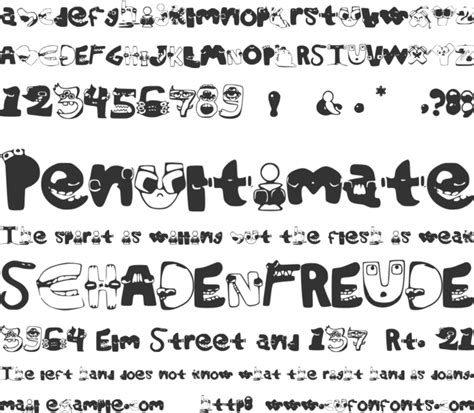
Alphabet Number Lore Font. Web create a text effect alphabet lore with our online custom font generator. Web the alphabet lore or also called the alphabet number lore font is a decorative font that was created by grace kelly.
Added fhe numbers in number lore so far… Web alphabet and number lore font family designed by unknown designer has a total of 1 different styles. Web 4 0 58 0. Alphabet lore (1) hack (17) facebank (1) tech (361) bank (8) tech banks (1) tekk (1) teach (2) tekk banks (1). Web create a text effect alphabet lore with our online custom font generator. Web the alphabet lore or also called the alphabet number lore font is a decorative font that was created by grace kelly. Web alphabet number lore font v3 regular ver 1.000 𑁋 modified at oct 23, 2022.